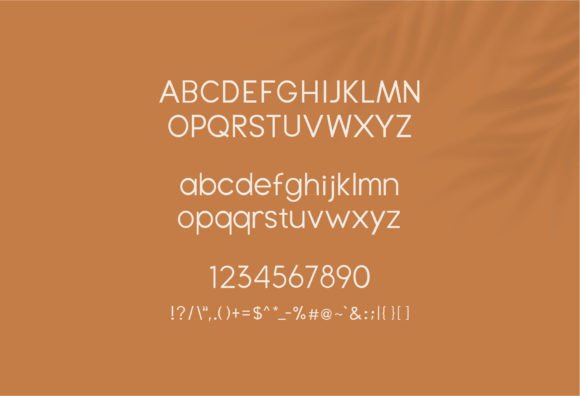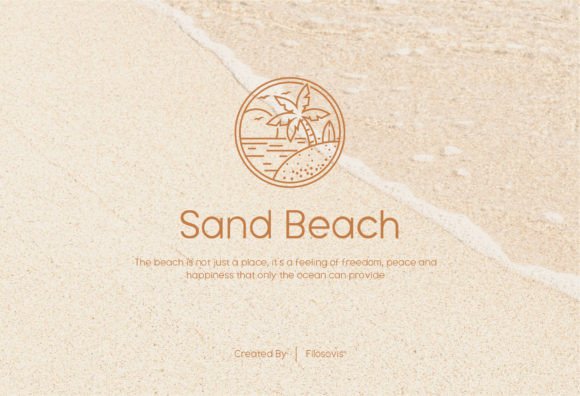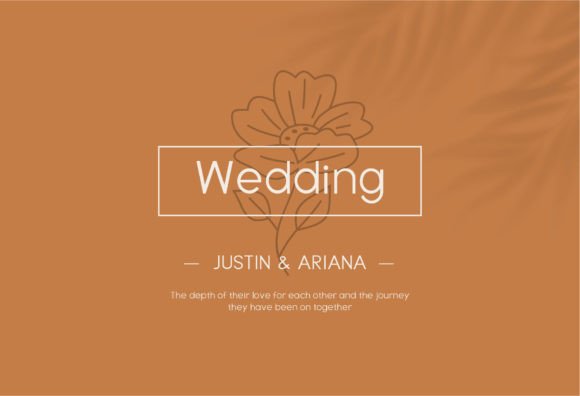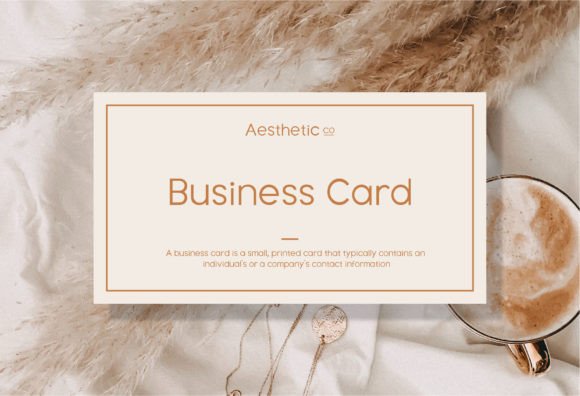
| 📌 Product Name | Kitama Sans Font |
Meet the Kitama Sans Font, a minimalist masterpiece that simplifies the design process without sacrificing visual appeal. This elegant font is perfect for creating a clean and modern look, making it an ideal choice for designers who want to make a statement without overwhelming their audience.
With its streamlined letters and simple design, the Kitama Sans Font is a valuable asset for any designer looking to add a touch of sophistication to their creations.
Kitama Sans Font Key Features
- Font Family: Kitama Sans is a sans-serif font family designed for clear readability and modern aesthetic.
- Unique Characteristics: Kitama Sans features a unique blend of geometric and organic elements, resulting in a distinctive and modern appearance.
Kitama Sans Font Review
Overall, I’m impressed with the elegance and modern feel of Kitama Sans Font. It’s a great choice for any project that needs a clean and sophisticated look. ✨
Here are some of its strengths:
- ✨ Highly legible, even at small font sizes
- ✨ Versatile and suitable for a wide range of applications, from body text to headings
- ✨ Beautifully designed for use in digital and print media
- ✨ Comes in a range of weights and styles, making it easy to customize
However, I did encounter a few limitations:
- ⚠️ Limited language support, which may be a concern for multilingual projects
- ⚠️ Not ideal for use in situations where a more dramatic or attention-grabbing font is needed
Overall, Kitama Sans Font is a solid choice for any designer looking for a clean and elegant font. While it may have some limitations, its versatility and high legibility make it a great addition to any project. I’d definitely consider using it again in the future.
Tips for Getting the Most Out of Kitama Sans Font
Kitama Sans Font is a clean and modern sans-serif font, making it perfect for headlines and titles. Use it to create a professional and sleek look in your designs.
Experiment with different font sizes and styles to create visual hierarchy and emphasis in your designs.
Kitama Sans Font is ideal for:
Headlines and titles
Body text in modern and minimalist designs
Branding and logos